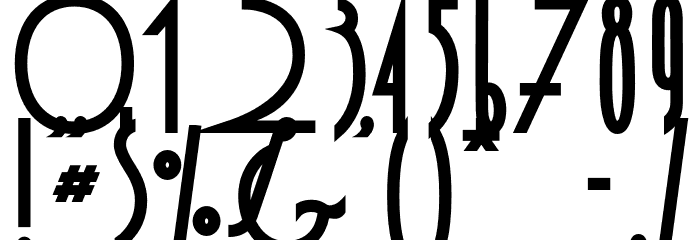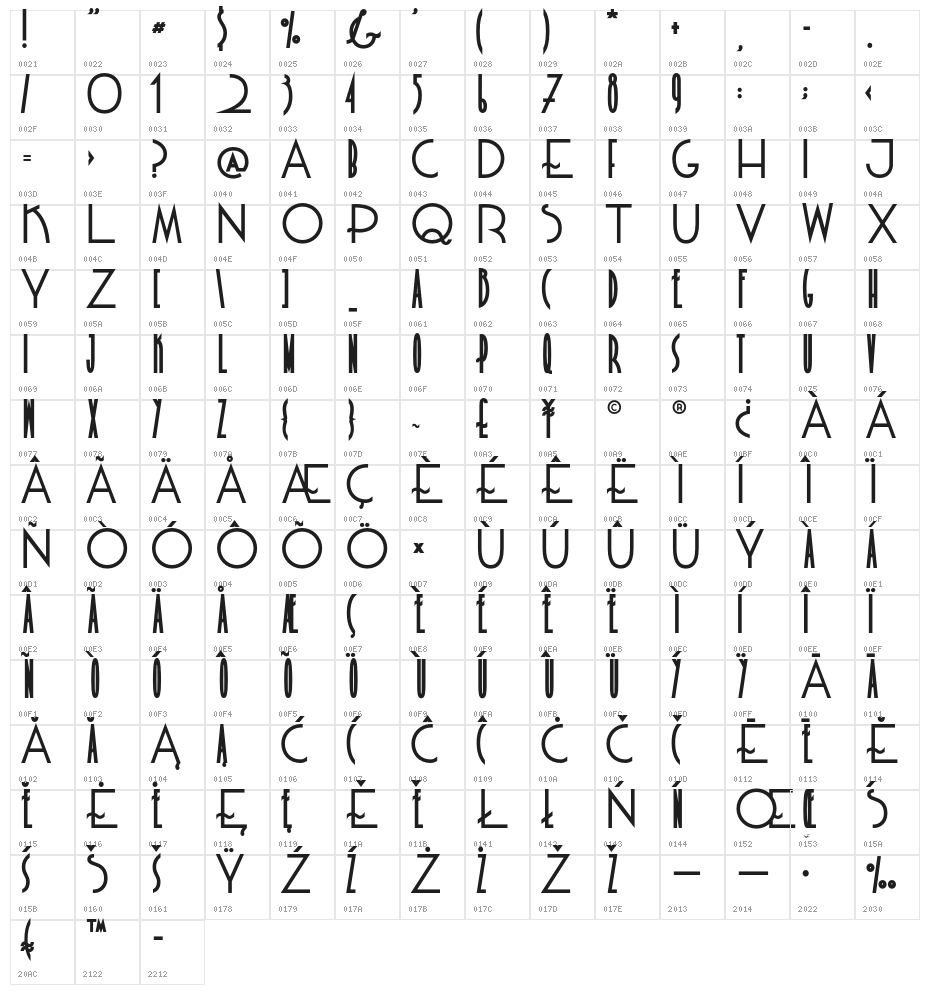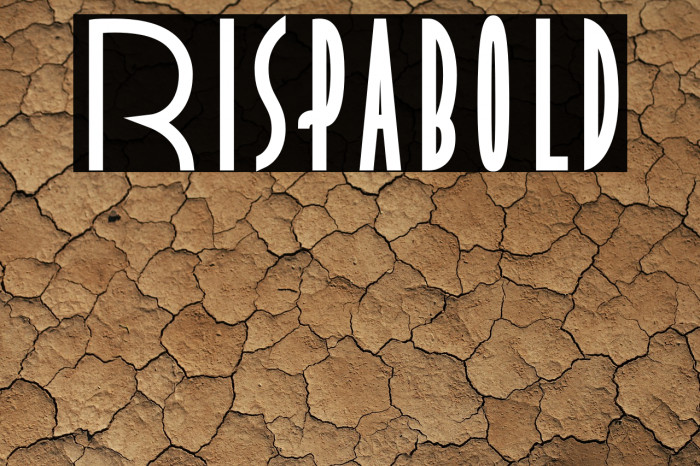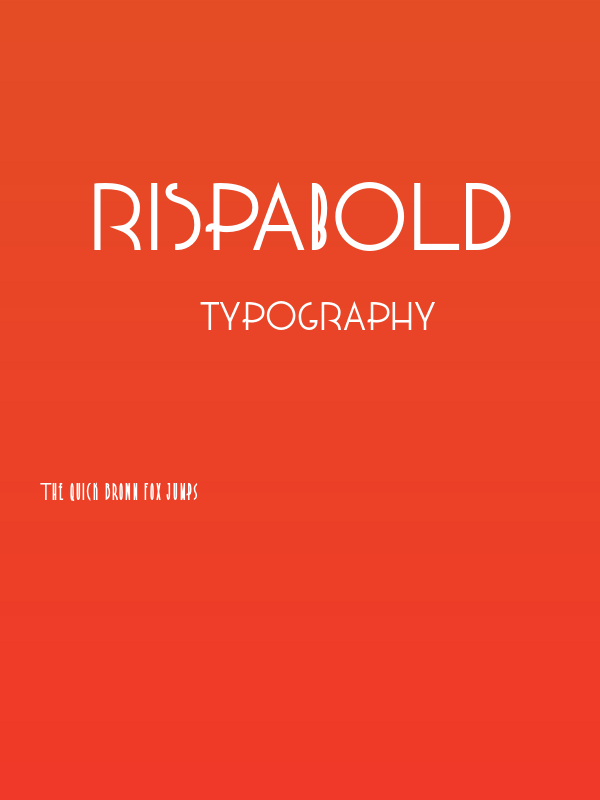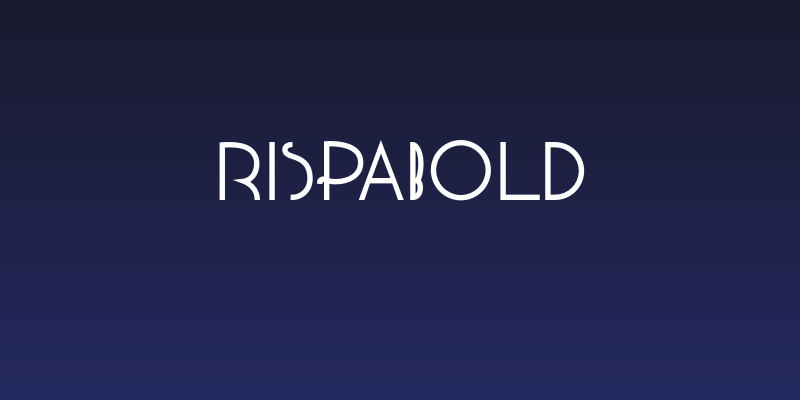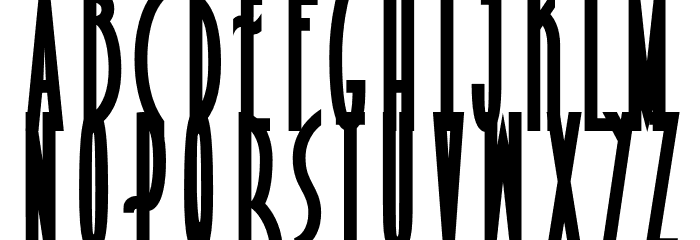
RispaBold Font
RispaBold Description
This font showcases a bold and striking design with a unique blend of geometric and abstract elements. The uppercase letters feature sharp angles and distinct curves, creating a dynamic and modern appearance. The lowercase letters maintain a consistent style, with some characters incorporating unusual shapes that add to the font's distinctive look. The numerals are bold and clear, ensuring readability while maintaining the overall aesthetic. Special characters are creatively designed, adding a touch of flair to the font. This font is ideal for projects that require a bold statement and a modern, artistic touch.
| Proposed Projects | Ideal for branding, posters, album covers, and any project needing a bold, artistic statement. |